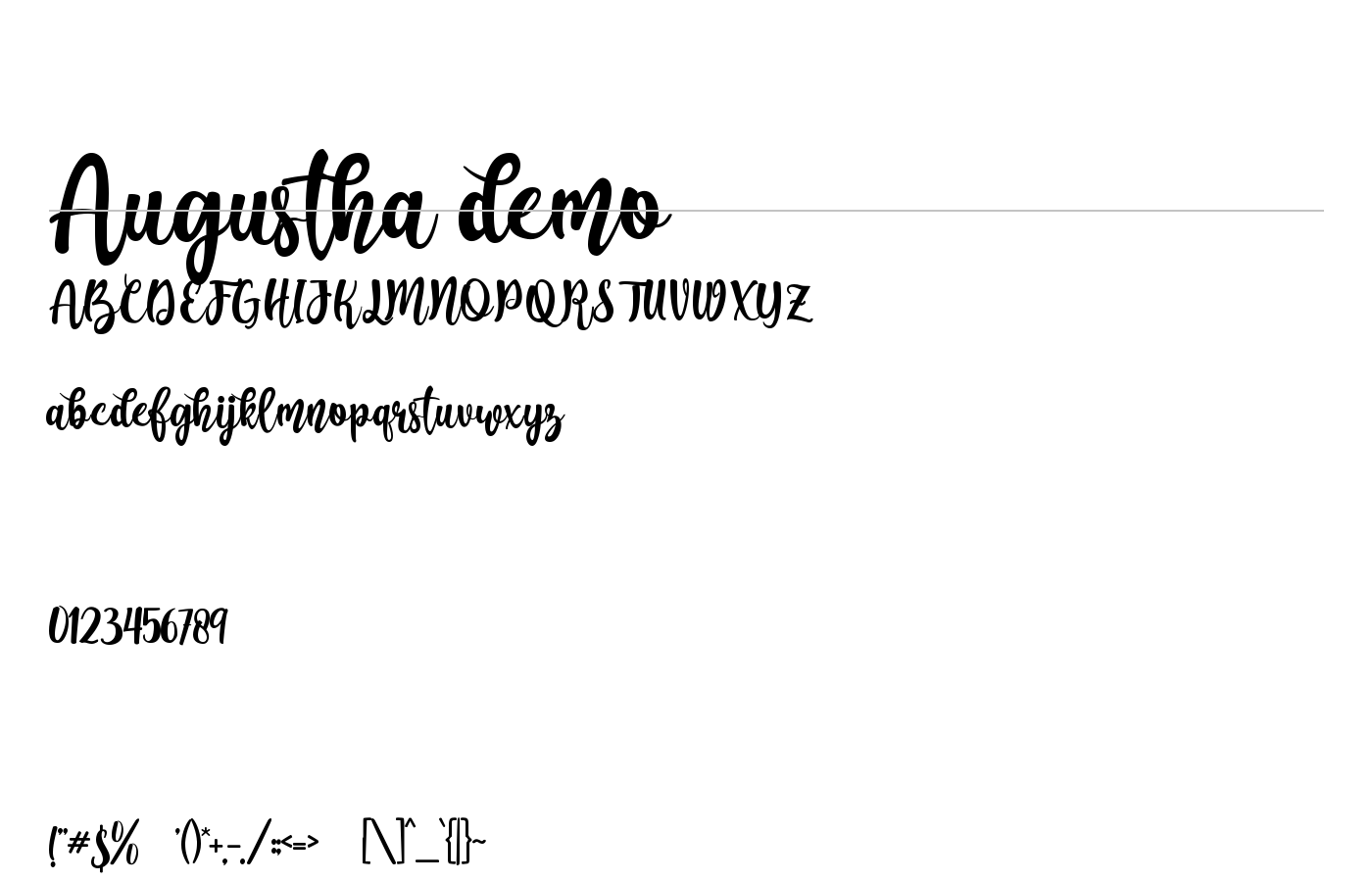
Augustha demo is a lively, script-style font with a bold weight and a smooth, flowing stroke that mimics natural handwriting. Its playful yet elegant character makes it ideal for creative projects, branding, invitations, and headlines where a friendly, personal touch is desired. This font stands out with its unique letterforms and consistent readability, perfect for adding charm and personality to your designs.
Augustha demo Font
About Augustha demo Font
| Font family | Augustha demo Font |
| Designer | Icep Anwar Fadhil |
| Trademark | Figuree Studio |